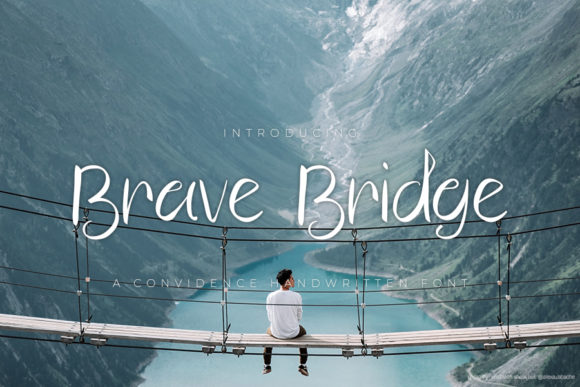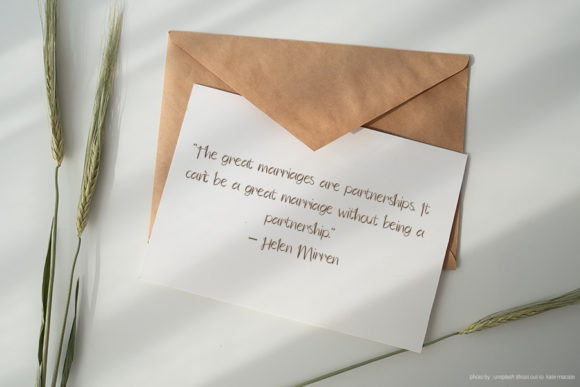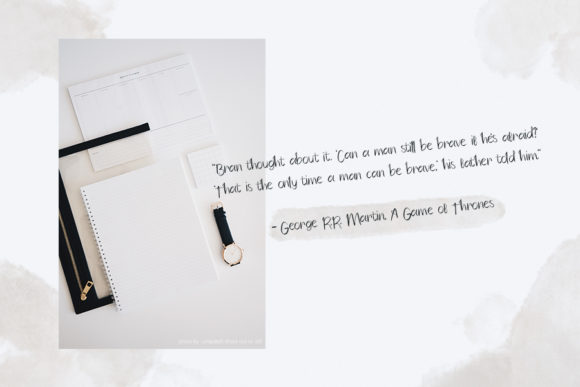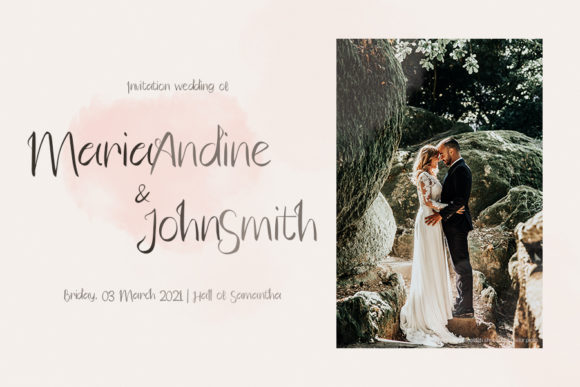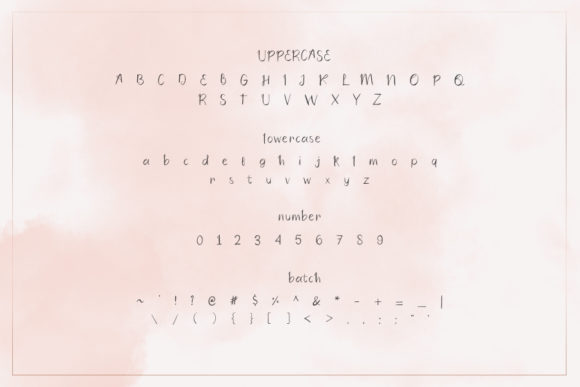
Brave Bridge Font
About Brave Bridge Font
Brave Bridge font is a smooth and beautifully lettered handwritten font. This adaptable script font has a wide spectrum of applications ranging from greeting cards to headlines and is guaranteed to add a romantic feel to your next project.